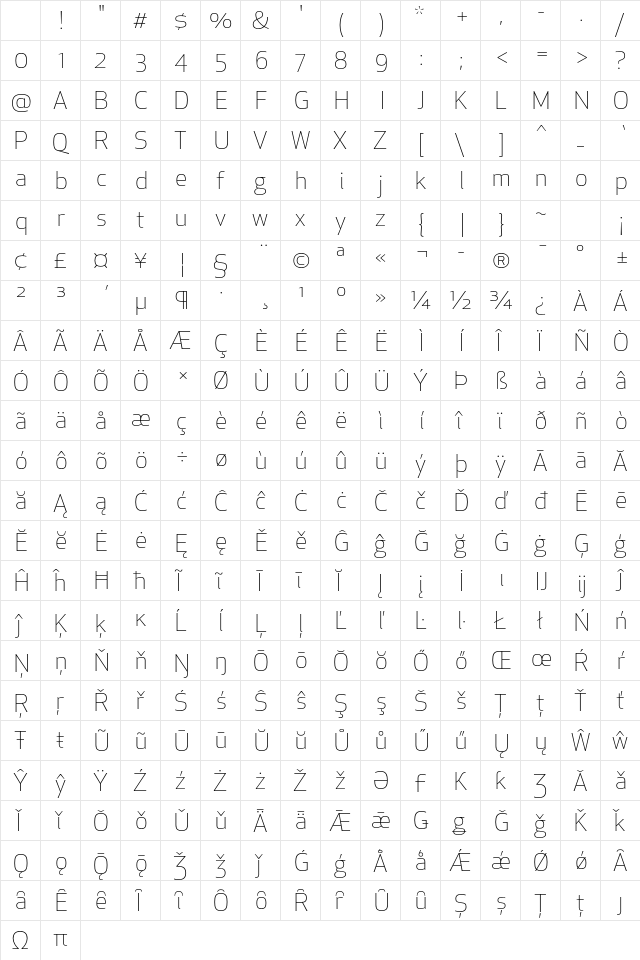
Apex New is a composed and adaptable typeface that performs quietly and consistently across a wide range of design contexts. Its slender proportions lend an understated elegance to any composition.